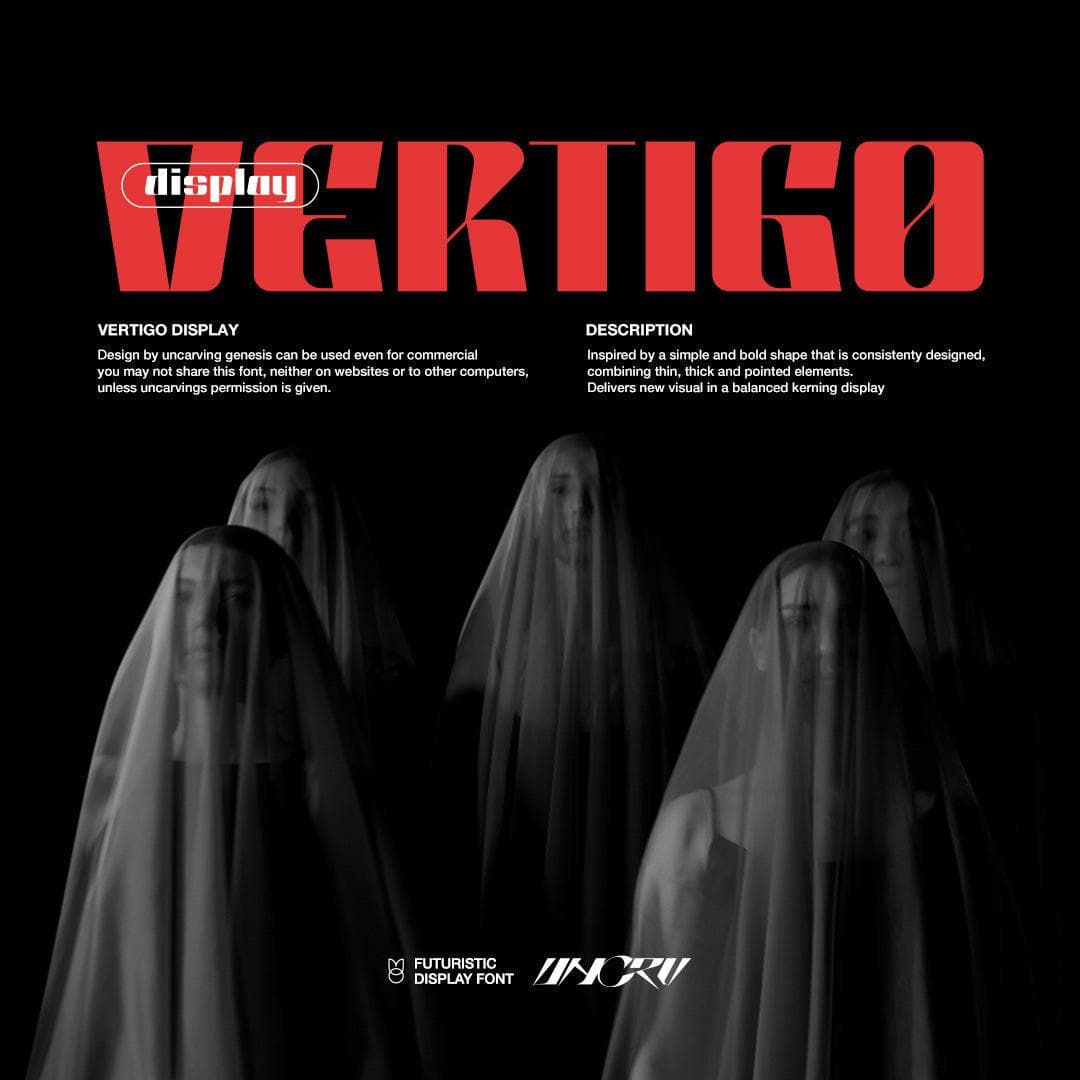
Vertigo cover
<p>Inspired by the modern bold theme, keeping the simplicity and unique shapes Great for use in your projects related to gaming, future tech, space travel, virtual reality &amp; much more!</p>